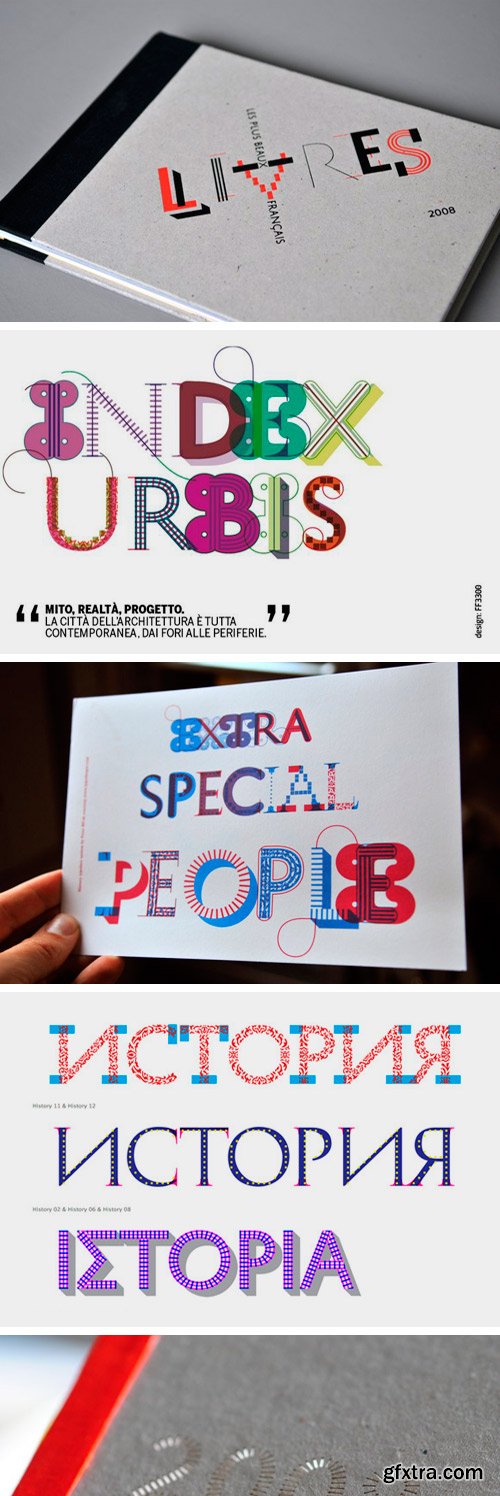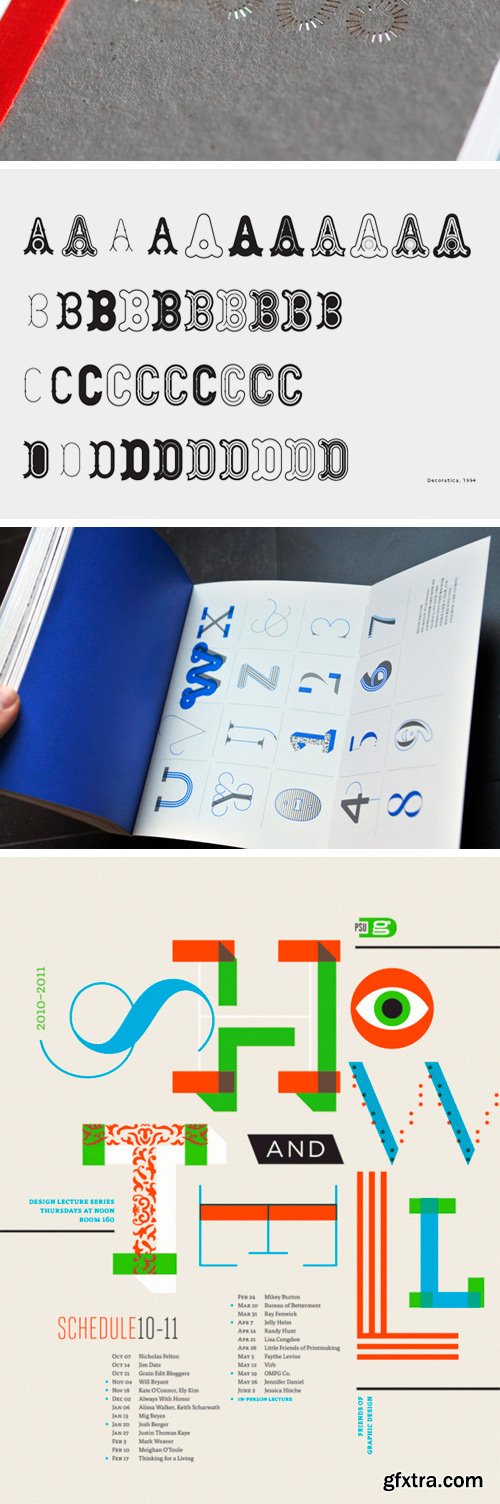
History Font Family
Based on a skeleton of Roman inscriptional capitals, History includes 21 layers inspired by the evolution of typography. These 21 independent typefaces share widths and other metric information so that they can be recombined. Thus History has the potential to generate thousands of different unique styles. History is available as a collection of 21 OpenType fonts that can be used just as any other fonts.